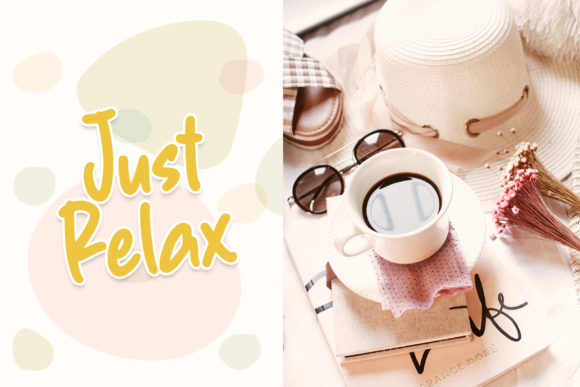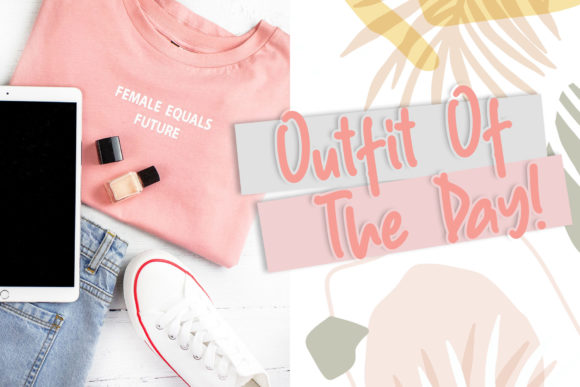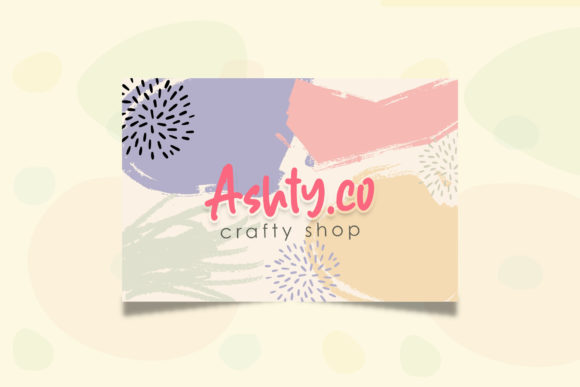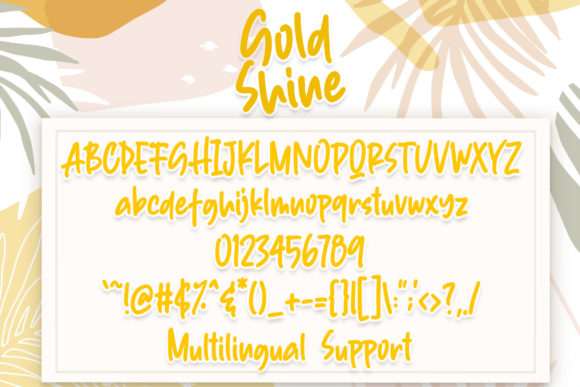
The Magical World of Gold Shine Font: A Designer’s Delight
I’ll never forget the time I was working on a project for a children’s birthday party invitation. I had the design concept all sorted out, but I was stuck on finding the perfect font. The design just didn’t feel joyful and playful enough. That’s when I stumbled upon the Gold Shine font, and it completely transformed my design. The quirky, handwritten style added a spark of fun and energy that perfectly matched the party’s vibe. In this article, I’ll share my love for the Gold Shine font, its features, and how to make the most of it in your designs.
An Honest Review of Gold Shine Font
What I Love About Gold Shine Font
- ✨ Cute and Quirky: Gold Shine font has a unique, handwritten style that’s perfect for adding a playful touch to your designs.
- ✅ Easy to Read: Despite its quirky nature, the font is surprisingly easy to read, making it suitable for both headings and body text.
- 💫 Versatile: Gold Shine font can be used for a wide range of design projects, from party invitations to social media graphics.
While Gold Shine font is an amazing addition to any design, there are a few things to keep in mind:
- 🤔 Limited Formality: Due to its playful nature, Gold Shine font might not be the best choice for formal or professional designs.
- ⚠️ Overuse: As with any font, using Gold Shine excessively can make your design look cluttered and overwhelming.
The Backstory of Gold Shine Font
The Gold Shine font was designed with the intention of creating a fun and playful typeface that would bring joy to designers and their audiences. The designer aimed to craft a font that would be perfect for party invitations, social media graphics, and other creative projects.
| Font Name | Gold Shine Font |
| Author | dmletter31 |
Q: What type of projects is Gold Shine font best suited for?
A: Gold Shine font is perfect for creative projects that require a playful touch, such as party invitations, social media graphics, and children’s book illustrations.
Q: Is Gold Shine font easy to read?
A: Despite its quirky nature, Gold Shine font is surprisingly easy to read, making it suitable for both headings and body text.